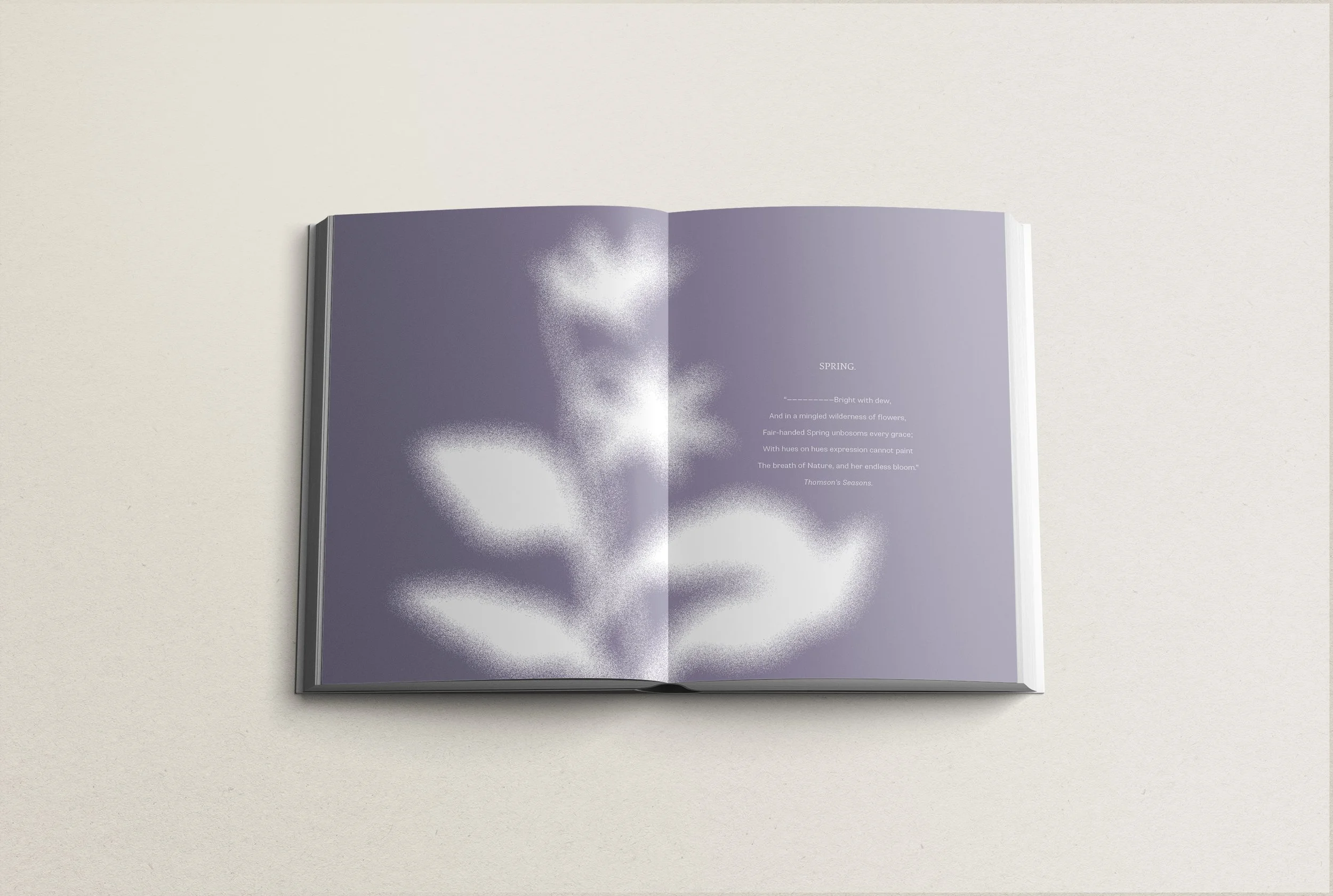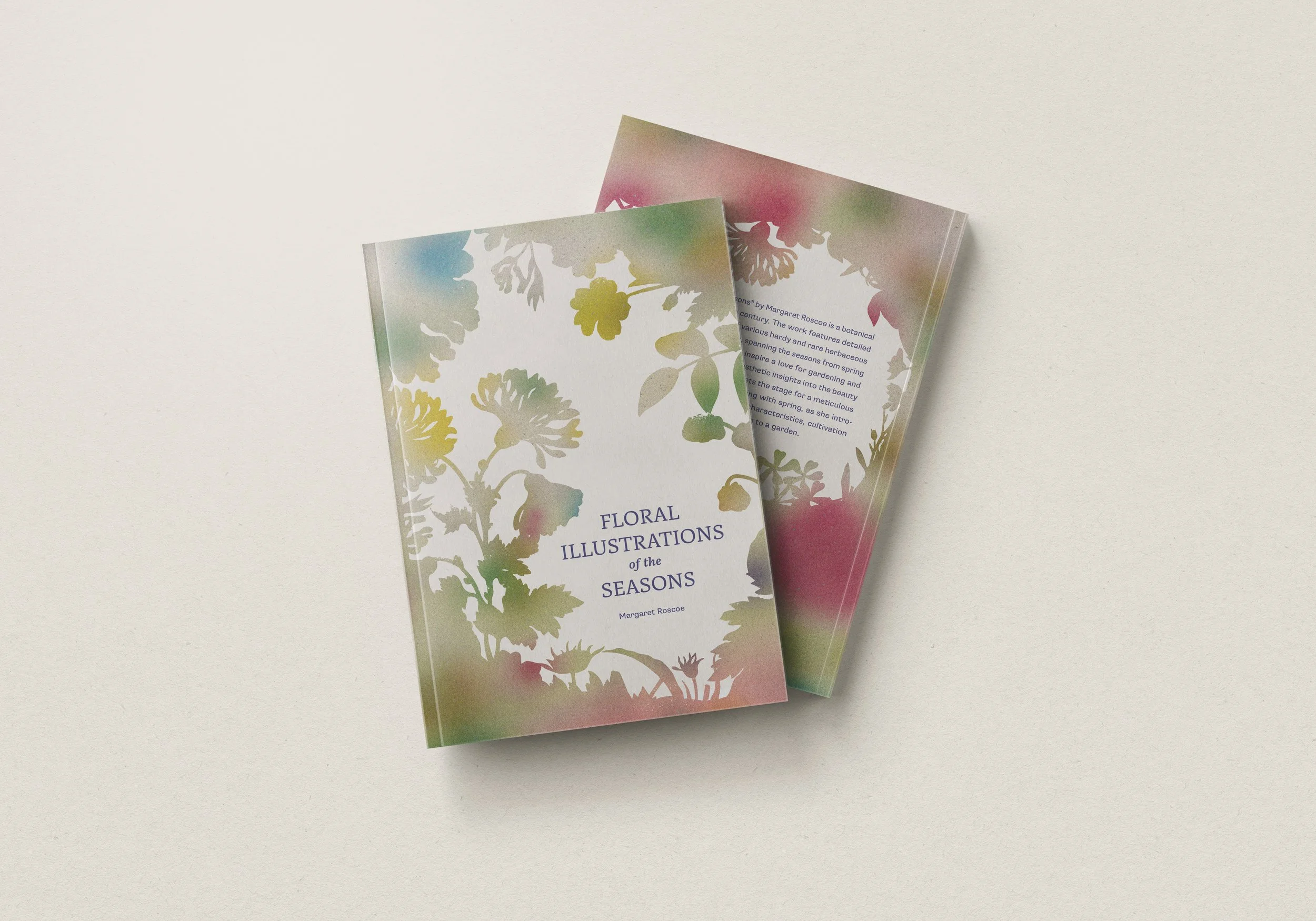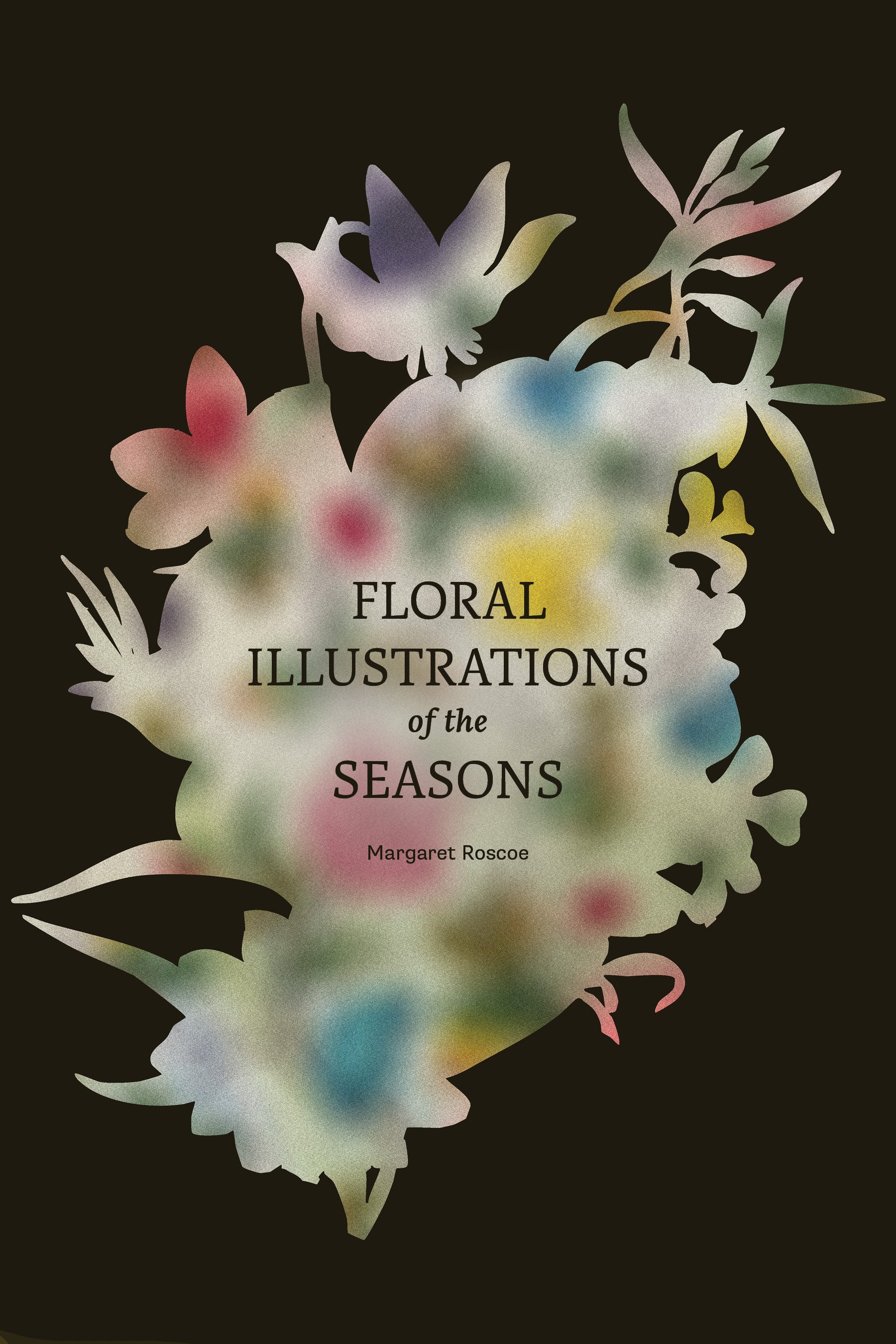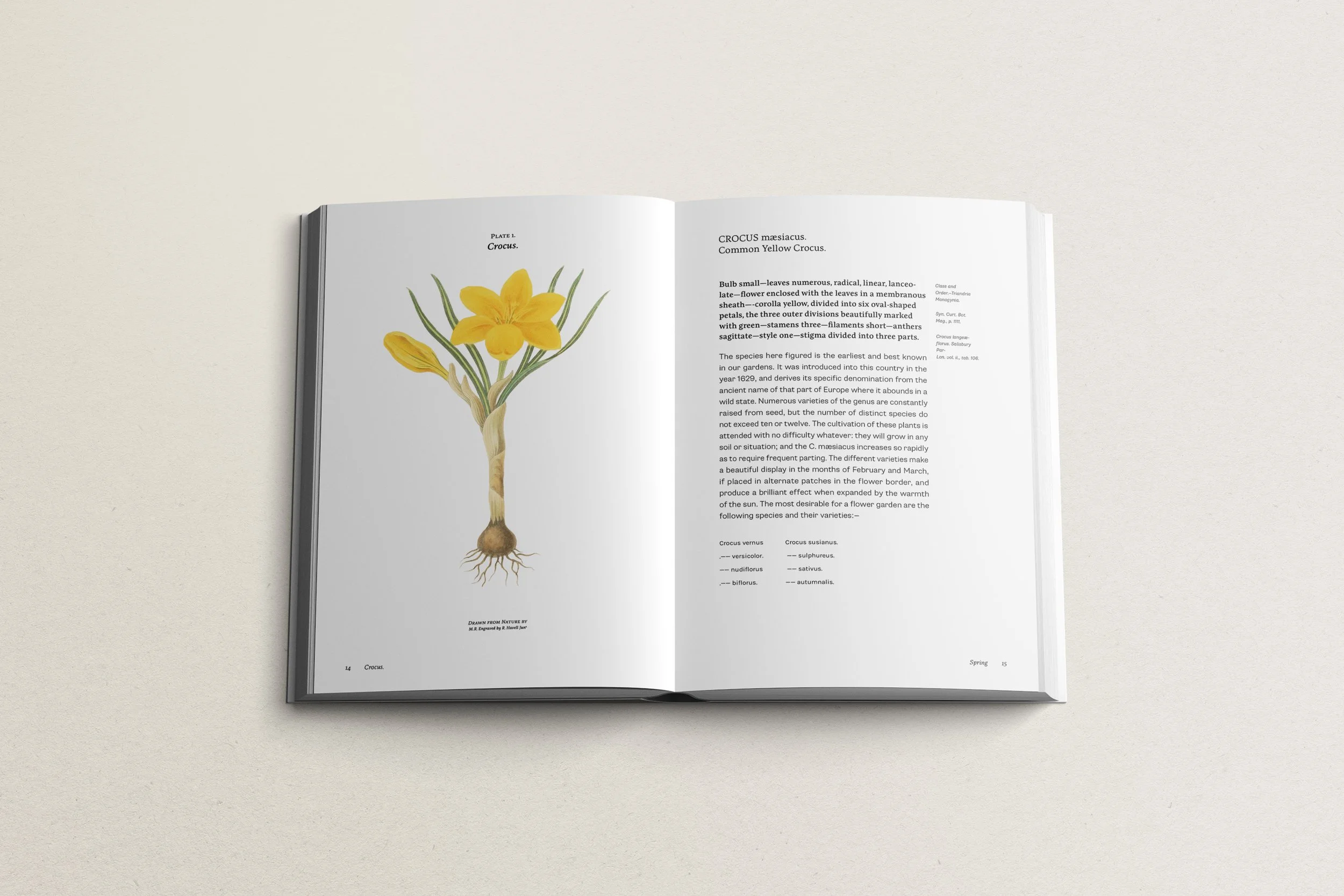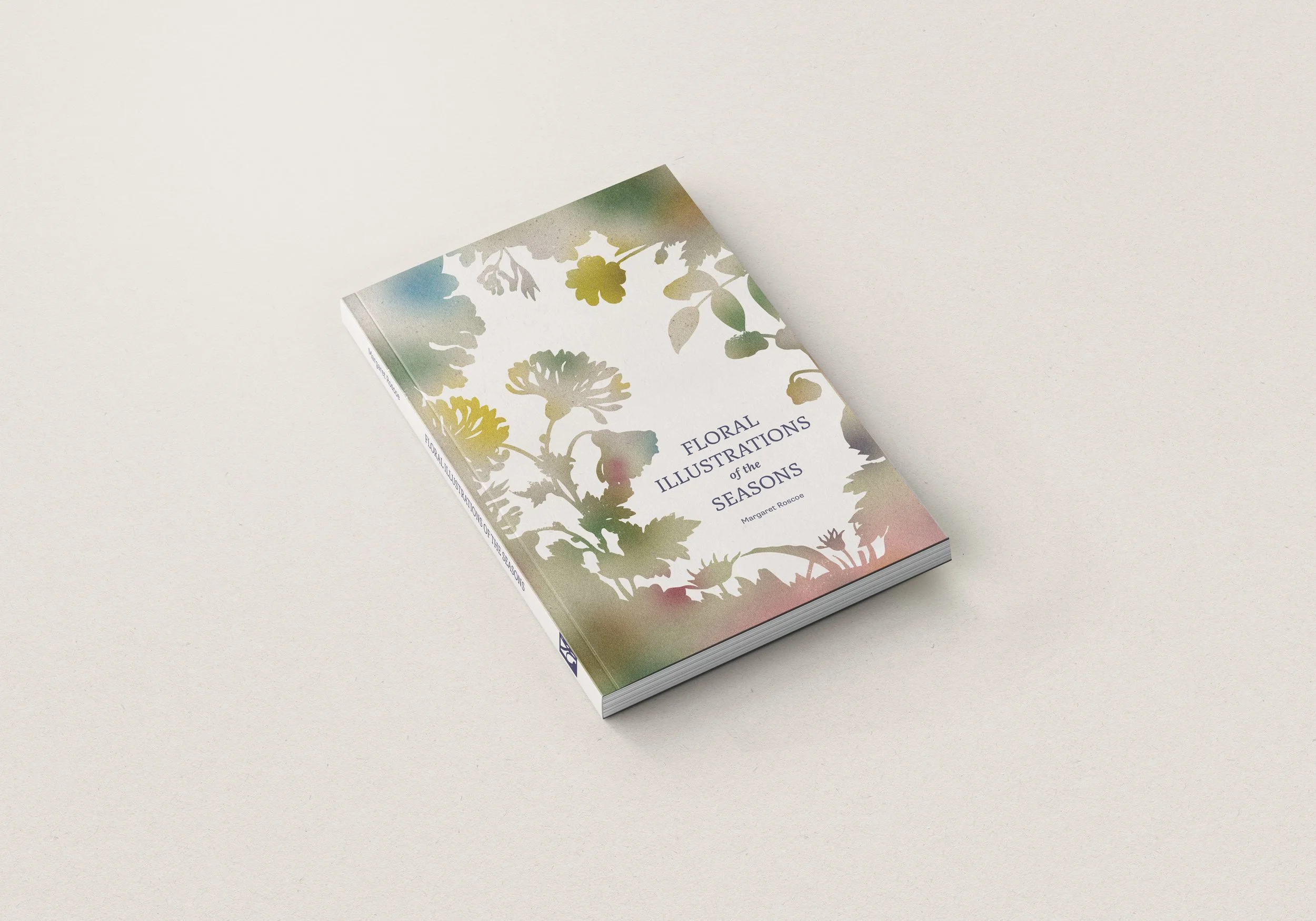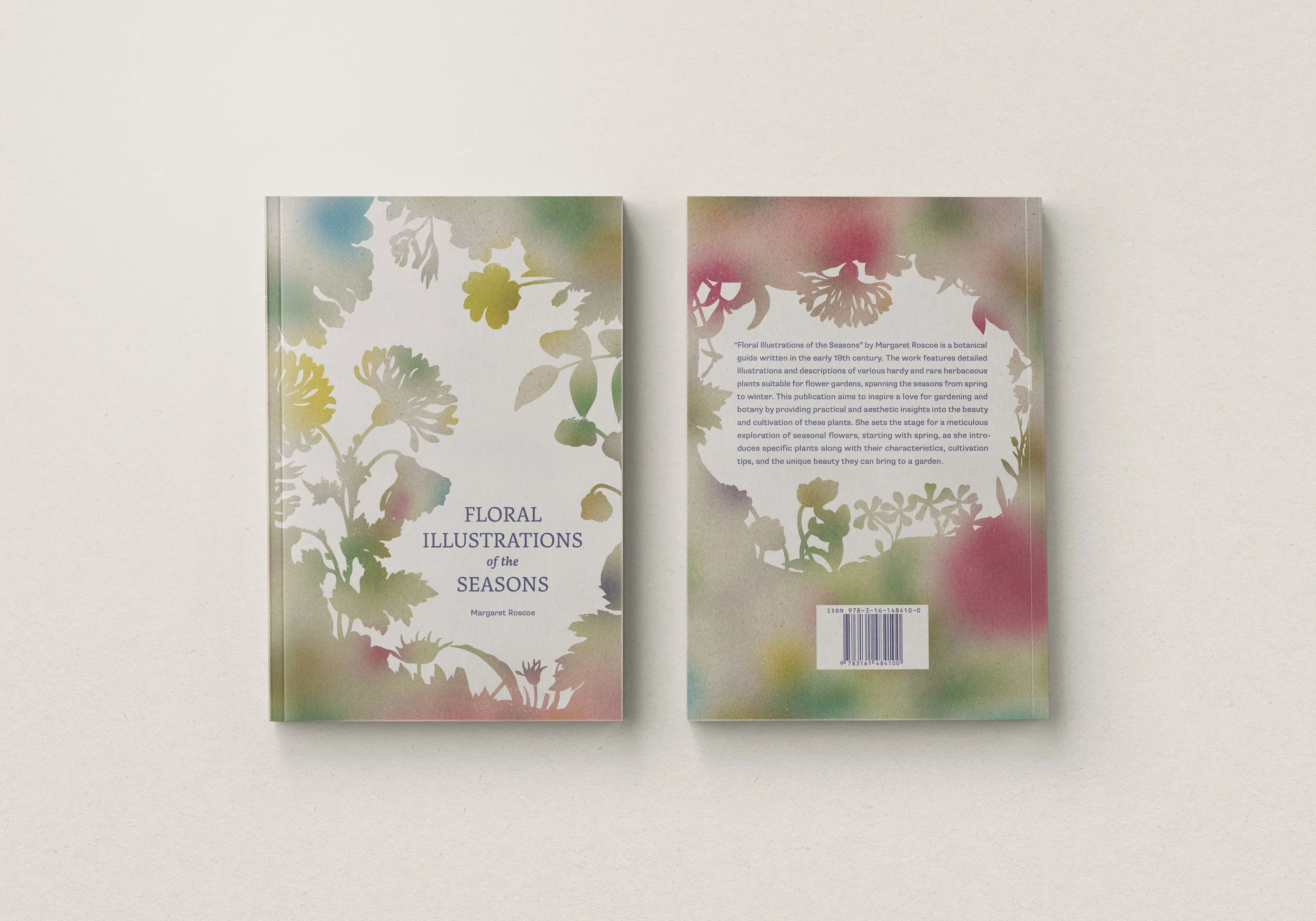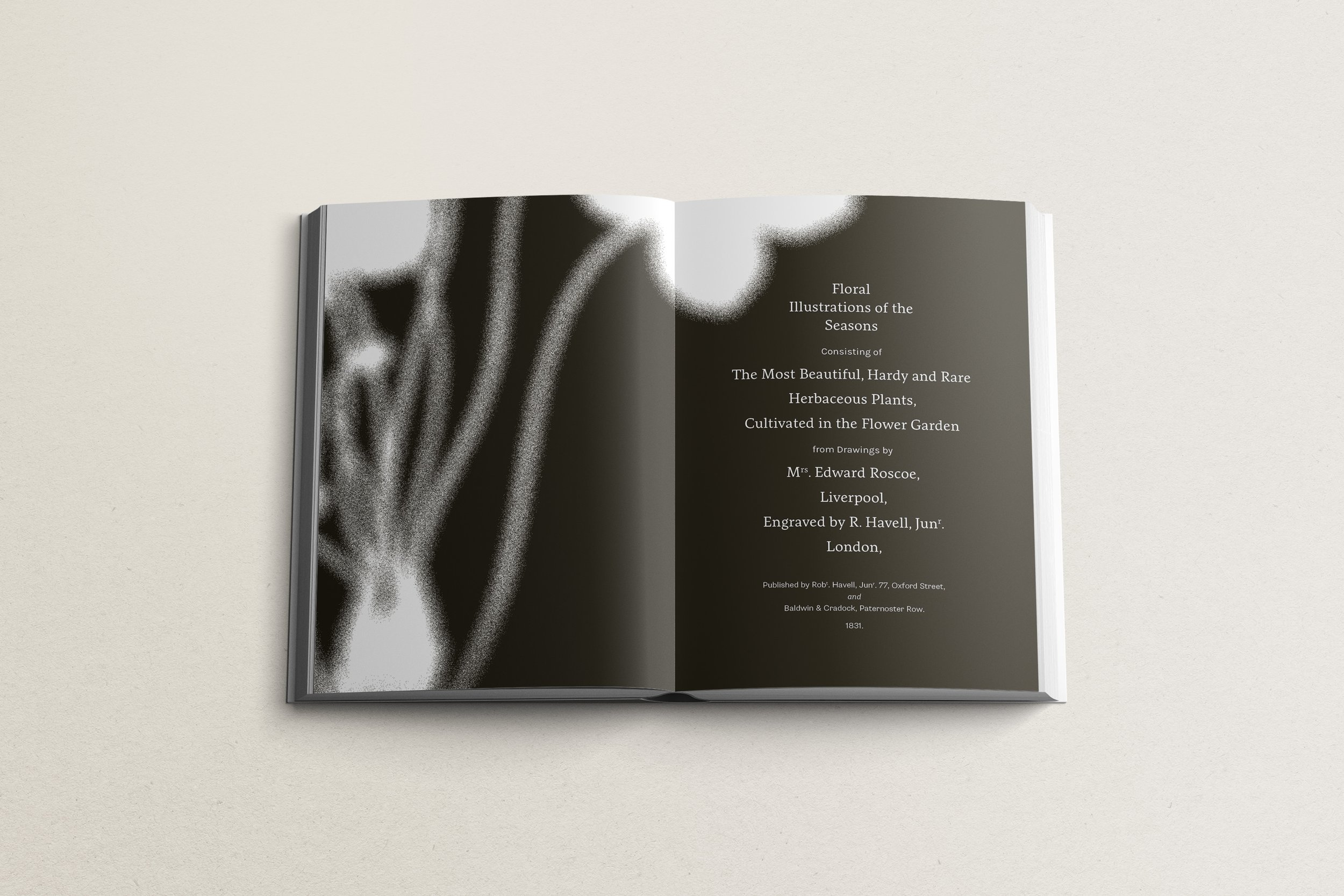
Floral Illustrations
of the Seasons
Consisting of the Most Beautiful, Hardy, and Rare Herbaceous Plants, Cultivated in the Flower Garden
by Margaret Roscoe
Book design by Elizabeth Gabriel
Project Description
Margaret Roscoe’s Floral Illustrations of the Seasons is an early 19th-century botanical guide full of hand-colored aquatint paintings. The book records, with detailed illustrations and descriptions, various flowering plants and their ideal seasons. Roscoe aims to cultivate, in the reader, a love for gardening and botany.
After plenty of waffling between texts, I decided on the Floral Illustrations of Seasons because of its delicious illustrations, dramatic type, and great type-setting opportunities. In doing a little research on how the illustrations were prepared, I learned about the aquatint printing process, in which copper plates were etched, inked, and printed. Roscoe would later use watercolor to render the flowers further. Considering that materiality, I created illustrations for the cover and chapter openers that reference watercolor blotches and washes. Cut into these washes of color are silhouettes of flowers. On the cover, the cutouts hug the book’s title, creating floral portals into the text beneath.
For type, I'm using Artigo for most titles and section openers and Supria Sans for everything else. I use Artigo for its calligraphic qualities, and Supria for its complementary humanistic details.
Original Publication Date
1831
Intended Audience
This contemporary edition is repackaged for a general audience, working both as a practical guide for those curious about learning about these plants and for those looking for aesthetic insight and inspiration. It could be useful for artists who’d like to use it as a reference/inspiration or amateur garden designers. It would certainly be found in a botanical garden’s gift shop.
Trim Size
6 × 9 inches
Text
10/14 Supria Sans × 15p8.25
Manufacturing Specifications
Soft cover with a matte finish